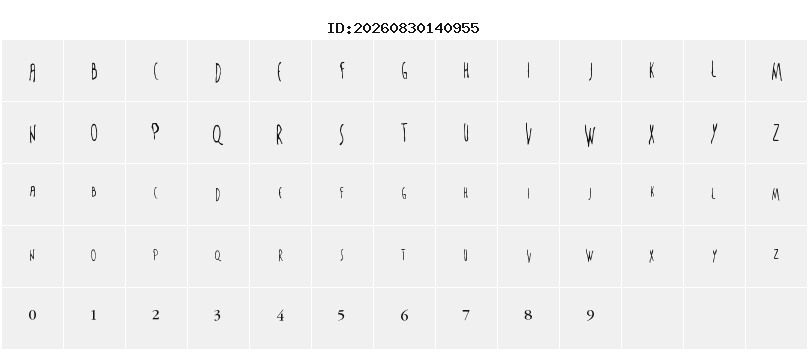
The Sixth Sense Preview
About The Sixth Sense.ttf
The Sixth Sense.ttf is a modern, elegant sans-serif font designed for ultimate readability and visual harmony. Perfect for branding, headlines, web design, and print materials.